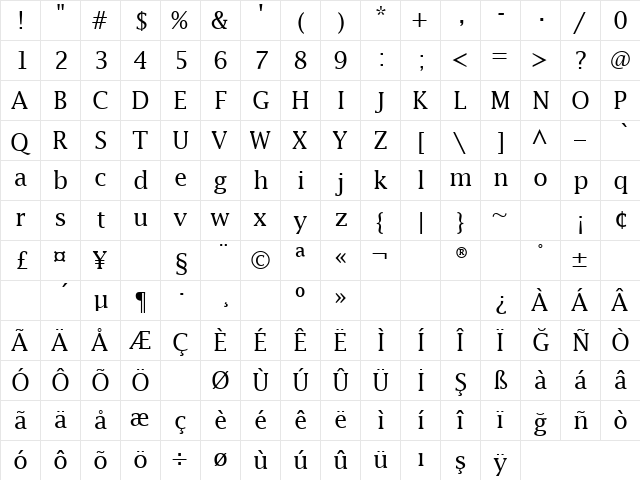
TR America Regular
Design Context for TR America Typeface
TR America offers clean, dependable letterforms without strong stylistic allegiance, making it a practical choice for designers who need flexibility.